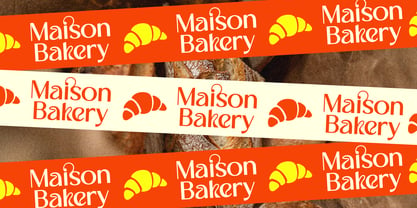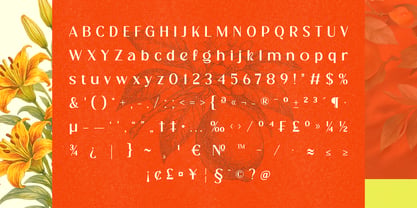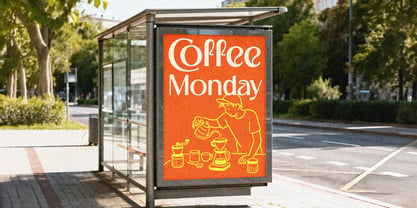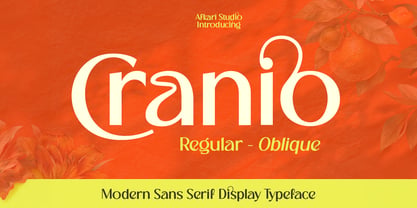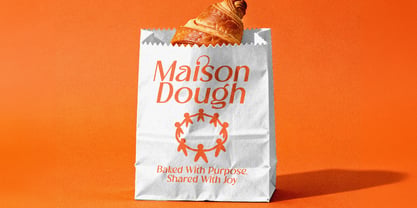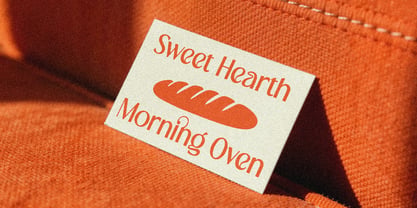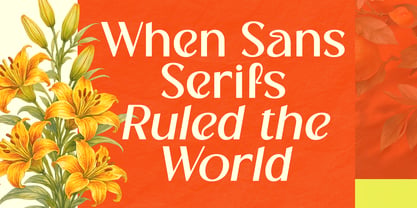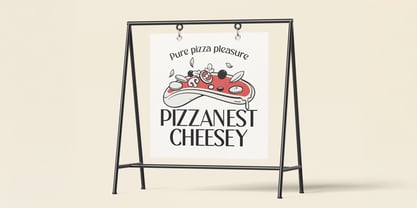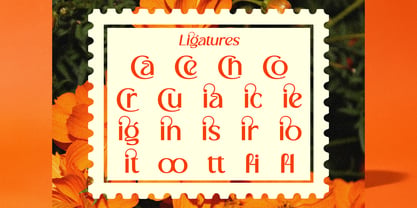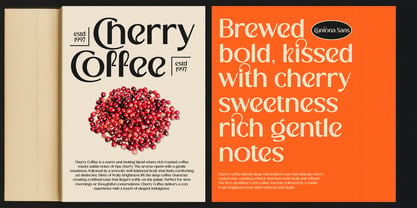
Cranio
by Afkari Studio
The Cranio Font Family was designed by Musthafa Kamal Emje and published by Afkari Studio. Cranio contains 2 styles and family package options. More about this family
Cranio is a modern sans serif display font designed to deliver clean impact, bold clarity, and contemporary style. Built with balanced proportions and strong geometric structure, Cranio offers a sleek and professional look that fits perfectly into today’s branding and digital design trends. Its sharp edges and confident letterforms make it an ideal choice for high-visibility typography. This modern sans serif display font works exceptionally well for logo design, tech branding, startup identities, posters, social media graphics, YouTube thumbnails, advertising campaigns, packaging, and editorial headlines. Cranio is crafted to stand out at large sizes while maintaining excellent readability and structure. Featuring uppercase and lowercase characters, numbers, punctuation, and multilingual support, Cranio provides flexibility for global creative projects. The minimalist yet powerful design approach makes it suitable for corporate branding, futuristic concepts, urban visuals, and clean modern layouts. Highlighted Features: - Uppercase, Lowercase, Number, and Punctuation - Special alternates - Modern serif display font - Elegant and high-contrast letterforms - Works on PC & Mac - Simple installations - Accessible in Adobe Illustrator, Adobe Photoshop, Adobe InDesign, and even work on Microsoft Word - Fully accessible without additional design software. - Mültîlíñgúãl Sùppört for; ä ö ü Ä Ö Ü ß ¿ ¡ If you are searching for a modern sans serif display font that combines simplicity, strength, and versatility, Cranio is ready to elevate your creative projects with contemporary confidence.